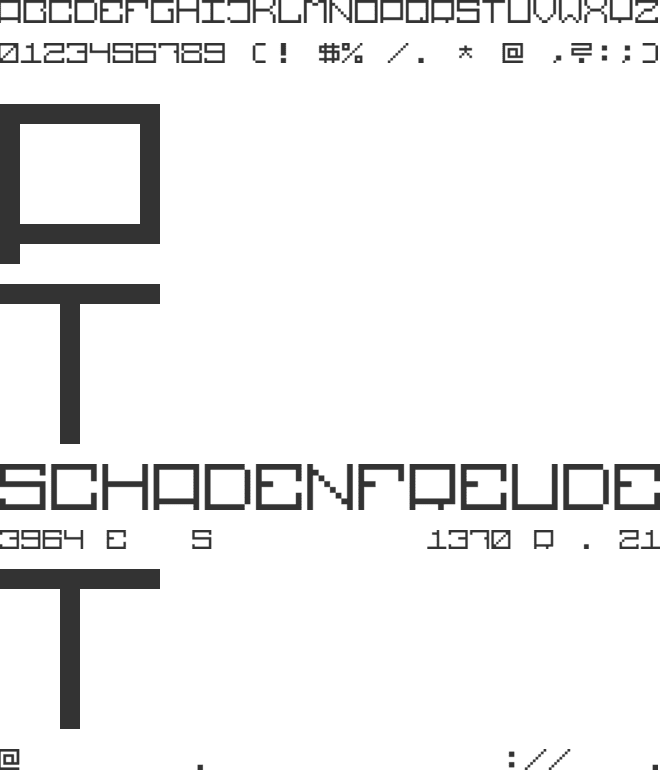
Square Pixel 822 Font
Niko Tersa
This is an 8x8 pixel version of my square pixel font. It's clearly more pixelated than the 9x9 or 10x10 pixel versions. Isn't it nice to have something to choose from?